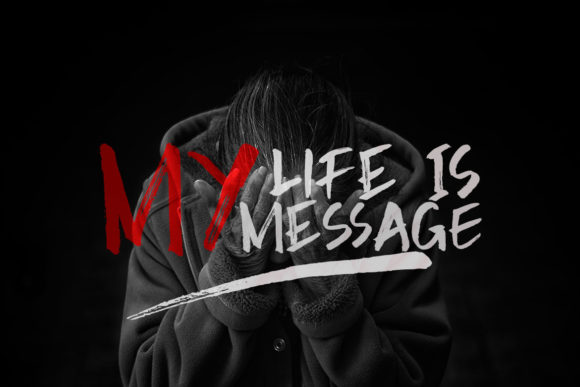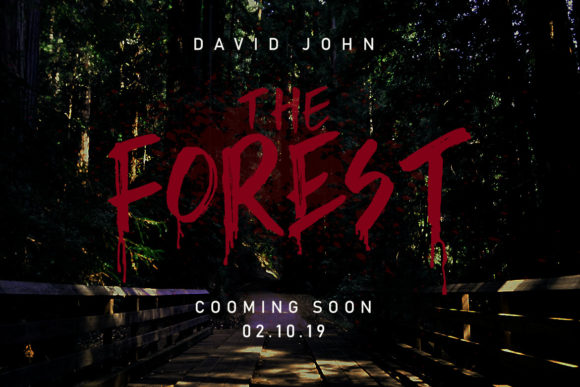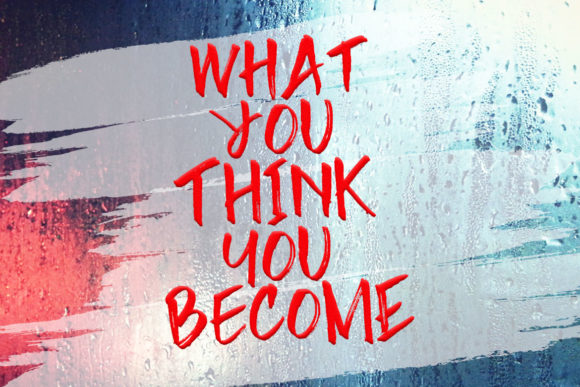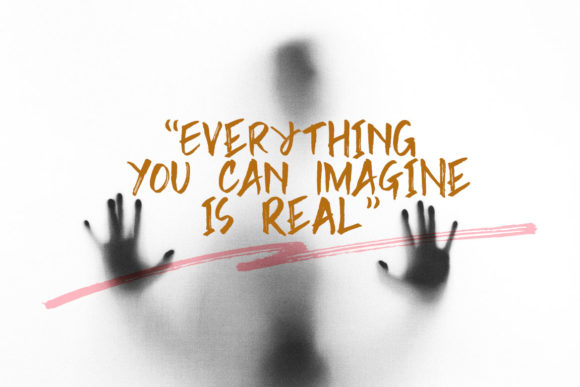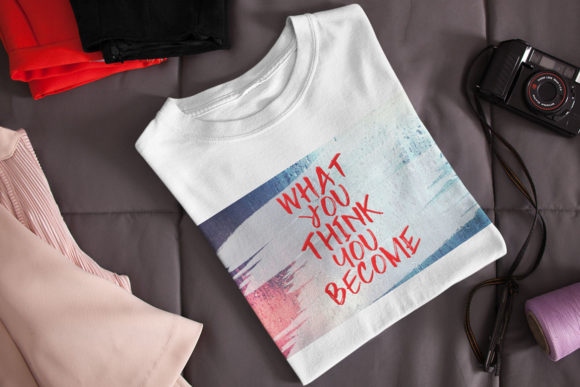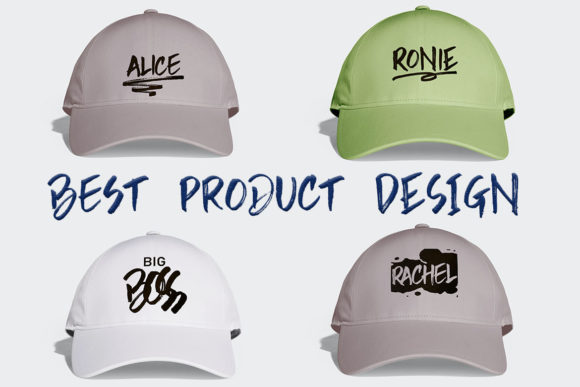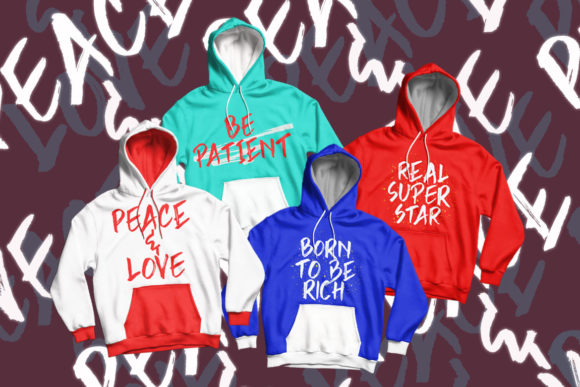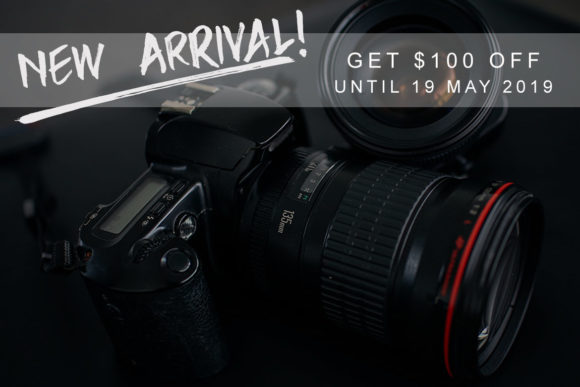
HomeScript FontsRain Brush Font Script Fonts Rain Brush Font FacebookXPinterestWhatsApp Rain Brush Font Poster 2 Rain Brush Font Poster 3 Rain Brush Font Poster 4 Rain Brush Font Poster 5 Rain Brush Font Poster 6 Rain Brush Font Poster 7 Rain Brush Font Poster 8 Rain Brush Font Poster 9 About Rain Brush Font Rain Brush is a bold and powerful script font with an authentic twist. Get inspired by its urban feel. DOWNLOAD ON CREATIVE FABRICAThis font is sold and delivered by Creative Fabrica. Font Canyon may earn a commission if you buy through this link. People also explored Chery Rush Font Gratefull Handwriting Font Bazaruto Family Ambarella Font Bang Chan Font The Good Food Font Samhain Dutchly Font Sanantha Font 394 0 TagsRain Brush Font Previous articleDemonstran FontNext articleGreat Things Font LEAVE A REPLY Cancel reply Comment: Please enter your comment! Name:* Please enter your name here Email:* You have entered an incorrect email address! Please enter your email address here Website: Save my name, email, and website in this browser for the next time I comment. Personal Use Free Stigma Font Personal Use Free Read more about this font Meloche Book Personal Use Free Read more about this font Love Memories Personal Use Free Read more about this font BD Console Personal Use Free Read more about this font BLOG Transform Your Website: Elevate Your Typography with 7 Best Web Font Generators Are you ready to transform your website's typography from ordinary to extraordinary? Great! Today, we're diving into the world of web font generators, which... Modern Sans-Serif Fonts That Brands Love in 2025 Best Fonts for YouTube Videos: Make Your Thumbnails Stand Out Best Fonts for T-Shirt Design – Top 2025 Picks